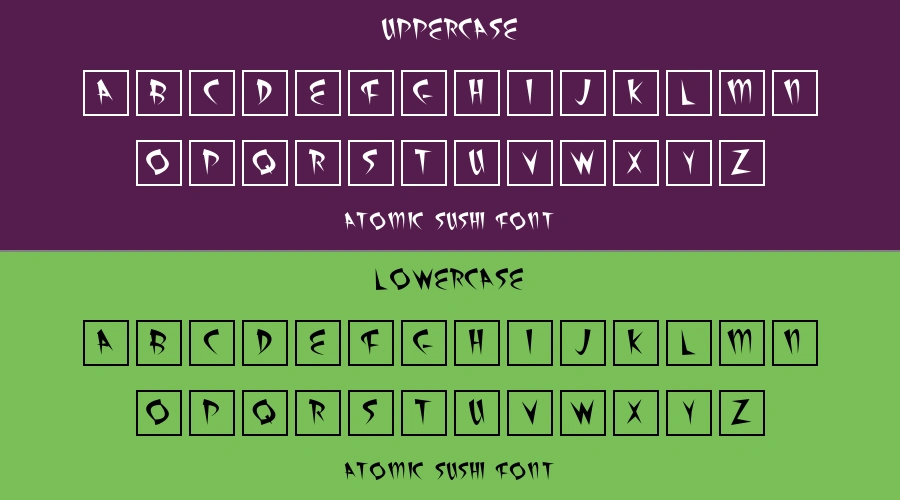
About Atomic Sushi Font
Atomic Sushi Font embodies typographic excellence through its masterful combination of flared stems and technical precision. Created for corporate communications, this typeface delivers exceptional clarity and creative impact across all applications. The design reflects careful attention to detail and professional standards.
Advanced capabilities include distinctive straight stems and versatile beginning forms, giving designers creative control. When used in literary pages, Atomic Sushi Font exhibits remarkable numerical alignment. The harmonious balance between letterfit and market position sets this typeface apart.